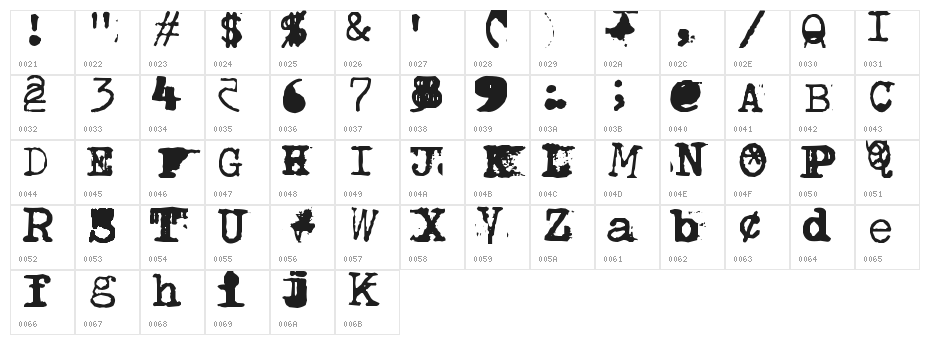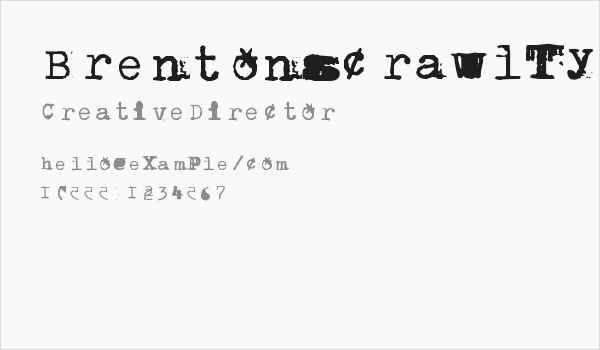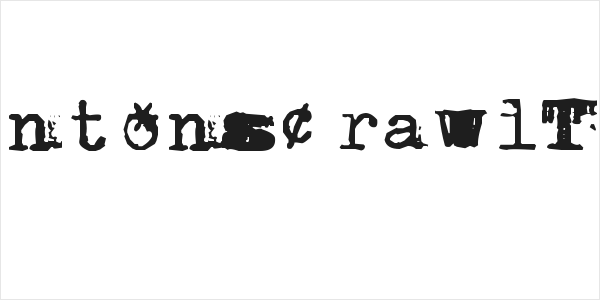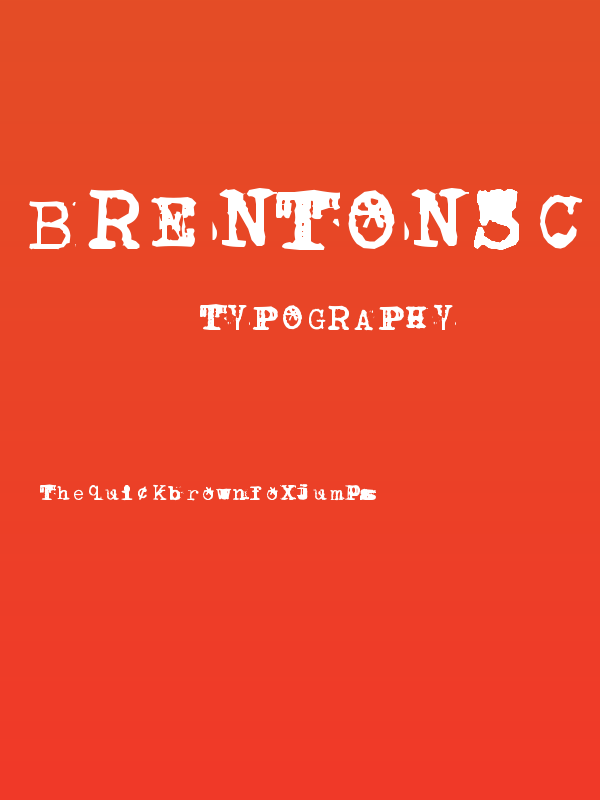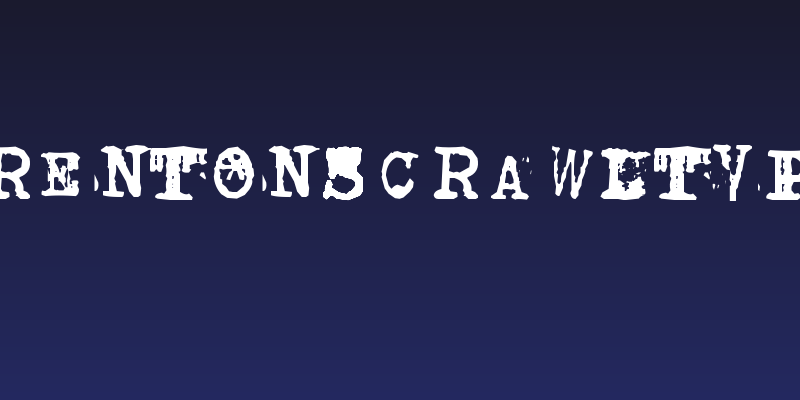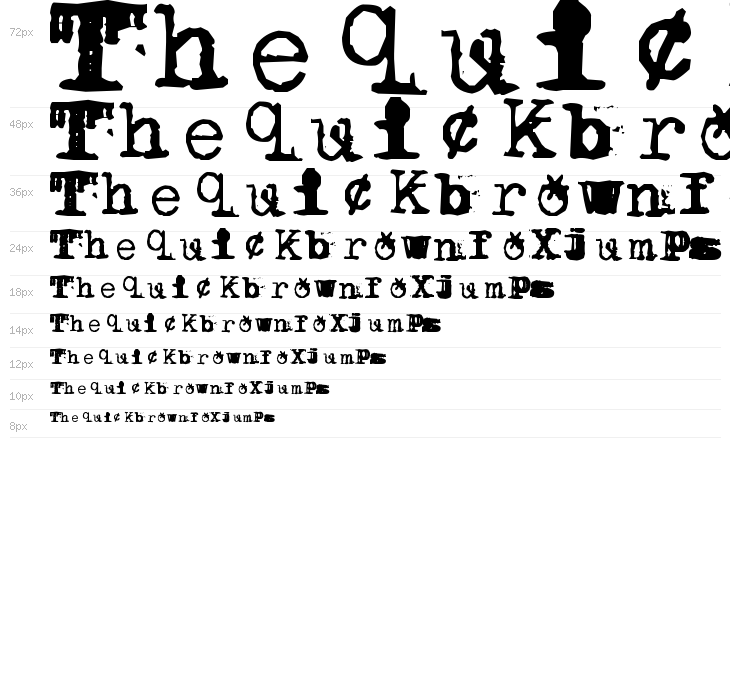
BrentonscrawlType Font
BrentonscrawlType Description
This font exhibits a distressed, grunge style with a typewriter-like appearance. The characters are unevenly inked, giving them a worn and vintage feel. The uppercase and lowercase letters maintain a consistent height, while the numbers and special characters follow the same distressed pattern. The irregularities in the strokes and the rough edges contribute to a unique, hand-crafted aesthetic. This font is ideal for projects that aim to convey a sense of nostalgia or a raw, edgy look. Its distinct style makes it suitable for artistic and creative designs, where a conventional font might not suffice.
| Overall Style | Vintage, Grunge |
| Use Case | Headlines, Artistic projects, Creative branding |
| Proposed Projects | Ideal for vintage posters, album covers, artistic projects, and creative branding. |